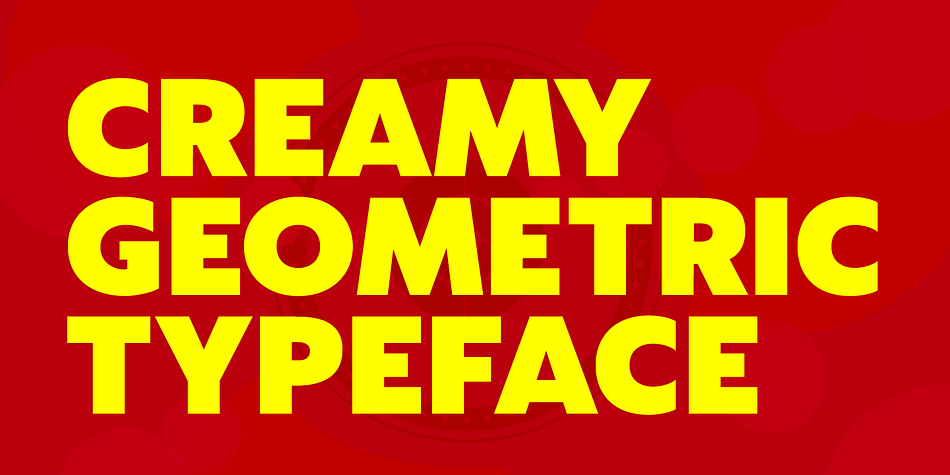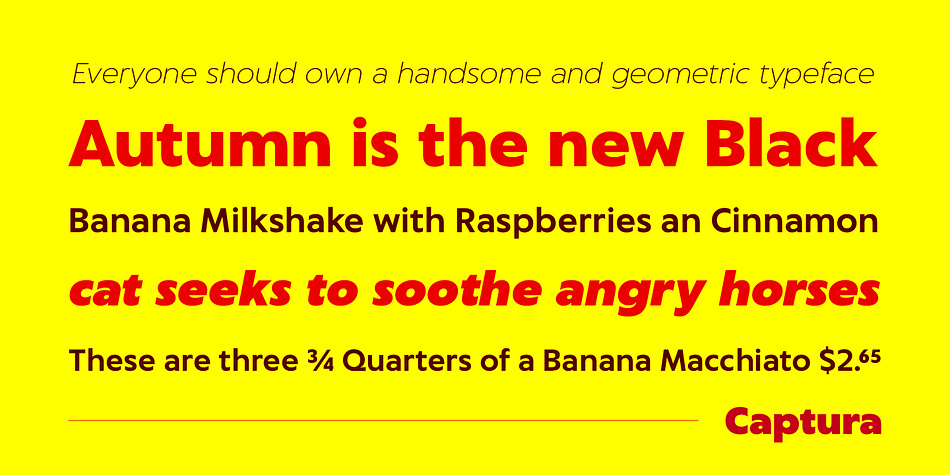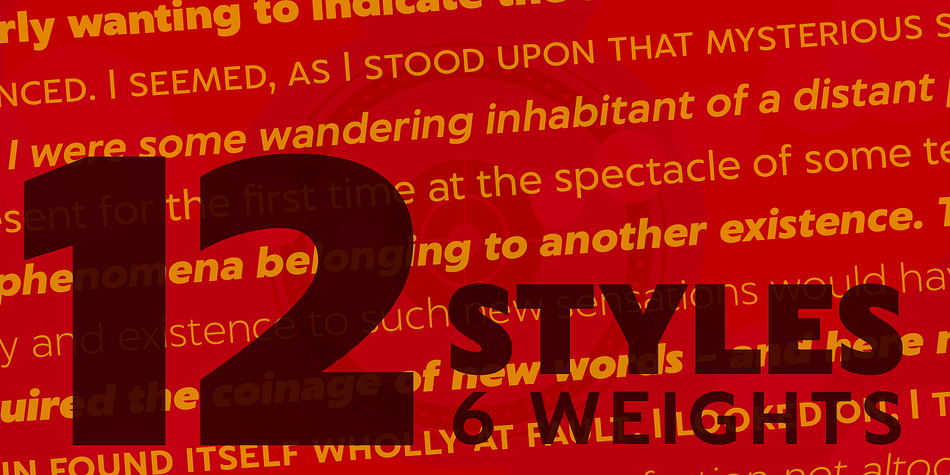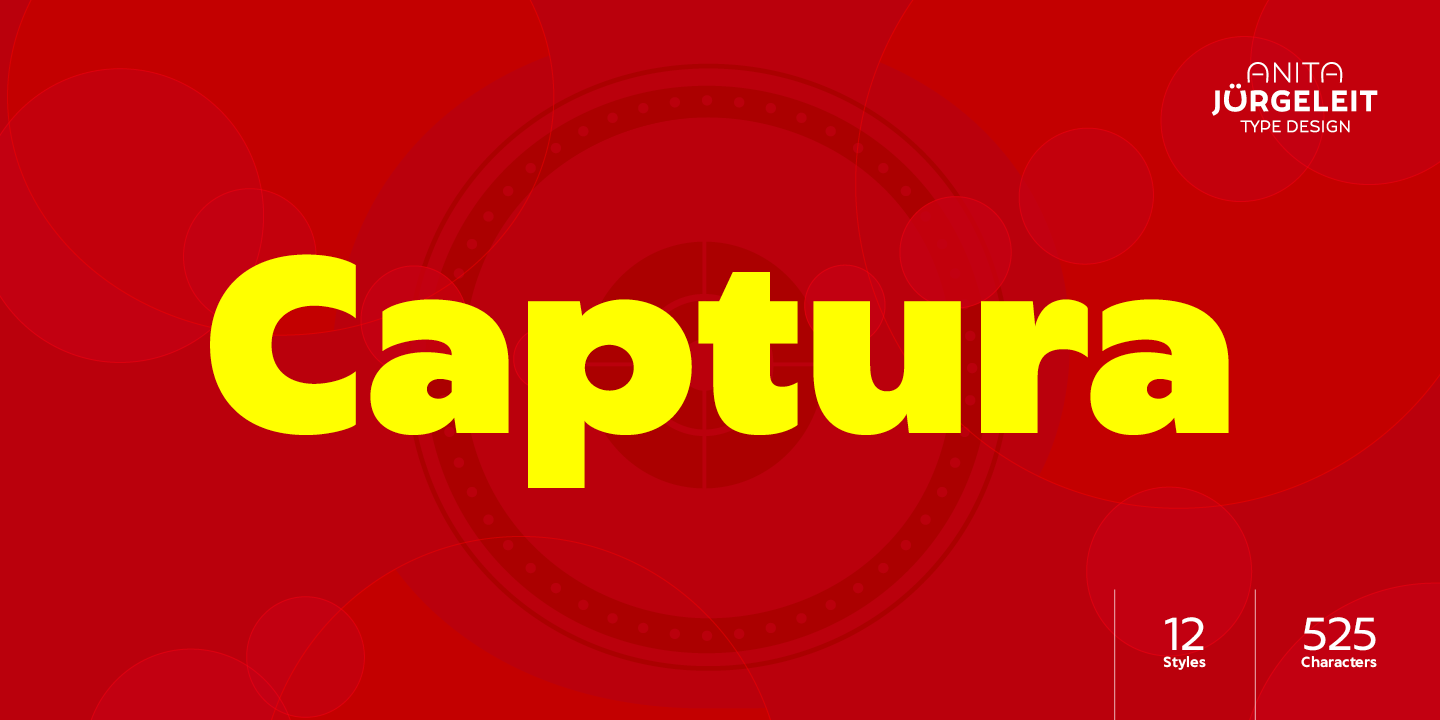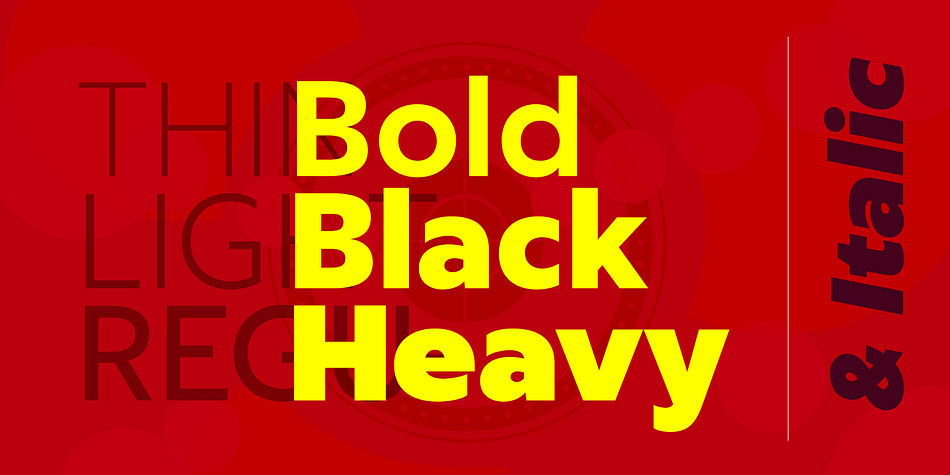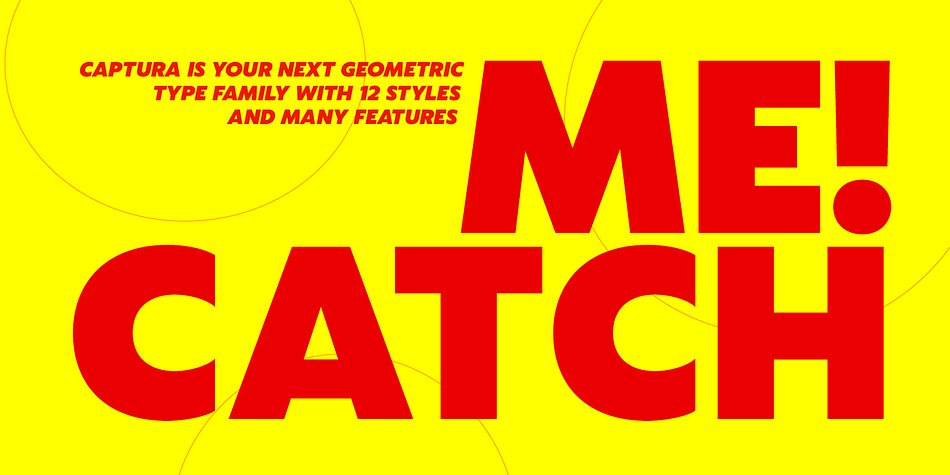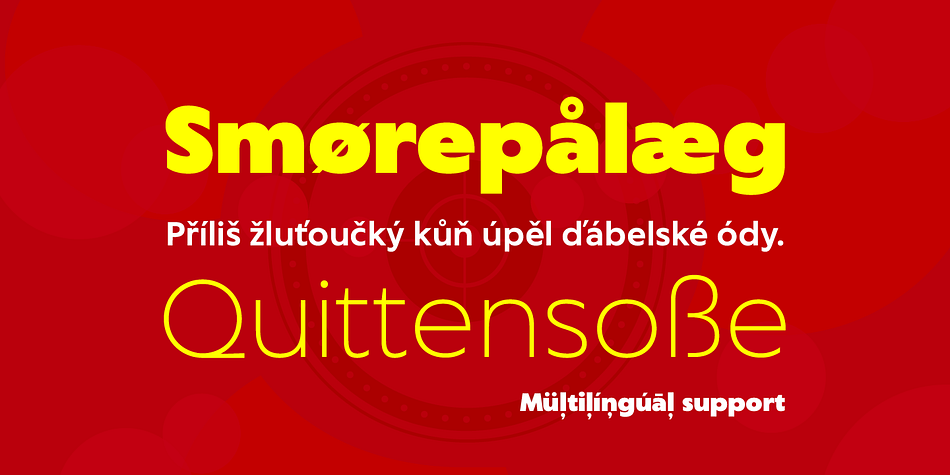
Captura
Designed by Anita Jürgeleit, Captura is a sans serif font family. This typeface has twelve styles and was published by Anita Jürgeleit.
Captura is a friendly, geometric, sans-serif typeface family reduced to the essential attributes. It was designed by Anita Jürgeleit. It underlines your design, whether it is based on an eccentric or discreet characteristic. Headlines are looking great and text content remains legible with this workhorse font family.
Six basic styles, small caps, and an expanded set of numbers match your magazines, infographics, menu cards, stationery, and advertising or movie titles. Additional currency symbols and additional fractions provide many opportunities to meet special international pricing requirements. Captura supports most Latin languages.